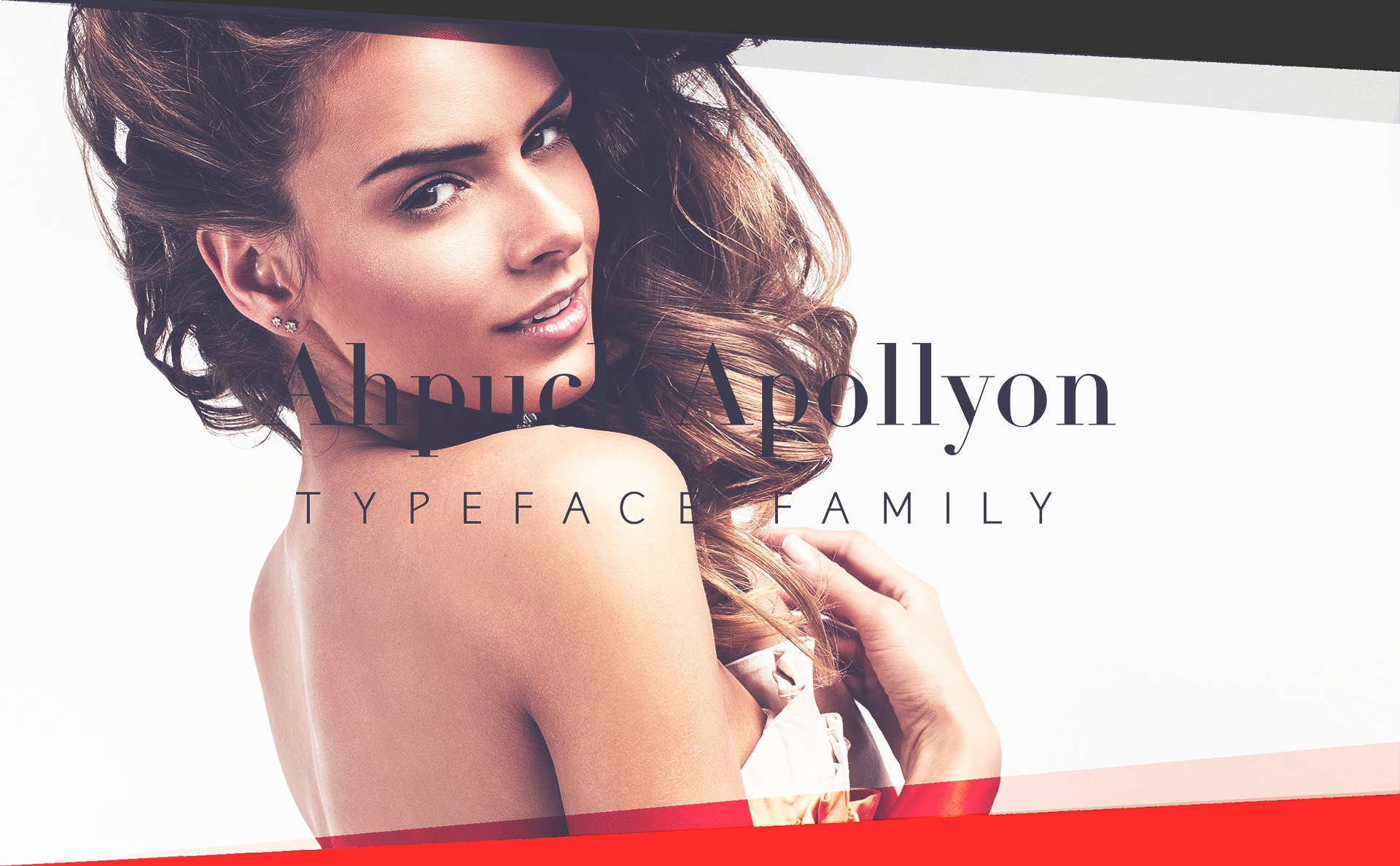
Ahpuch Apollyon Font Family
Ahpuch Apollyon is a new font family that inspired by the world of fashion and should be in use by the most popular fashion magazines and super luxury brands. Ahpuch Apollyon coming in 15 weights and matching italics. It includes full set of uppercase and lowercase letters, awesome ligatures and sexy numerals. Ahpuch Apollyon is a geometric typeface with some old classic European touches and high legibility and powerful personality, created to optimize space on the printed page and on the screen. Ahpuch Apollyon is a luxury font you can use it as product title or logo.